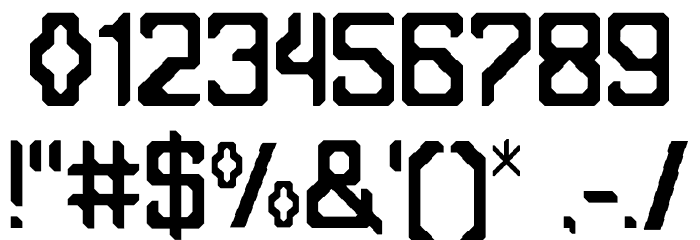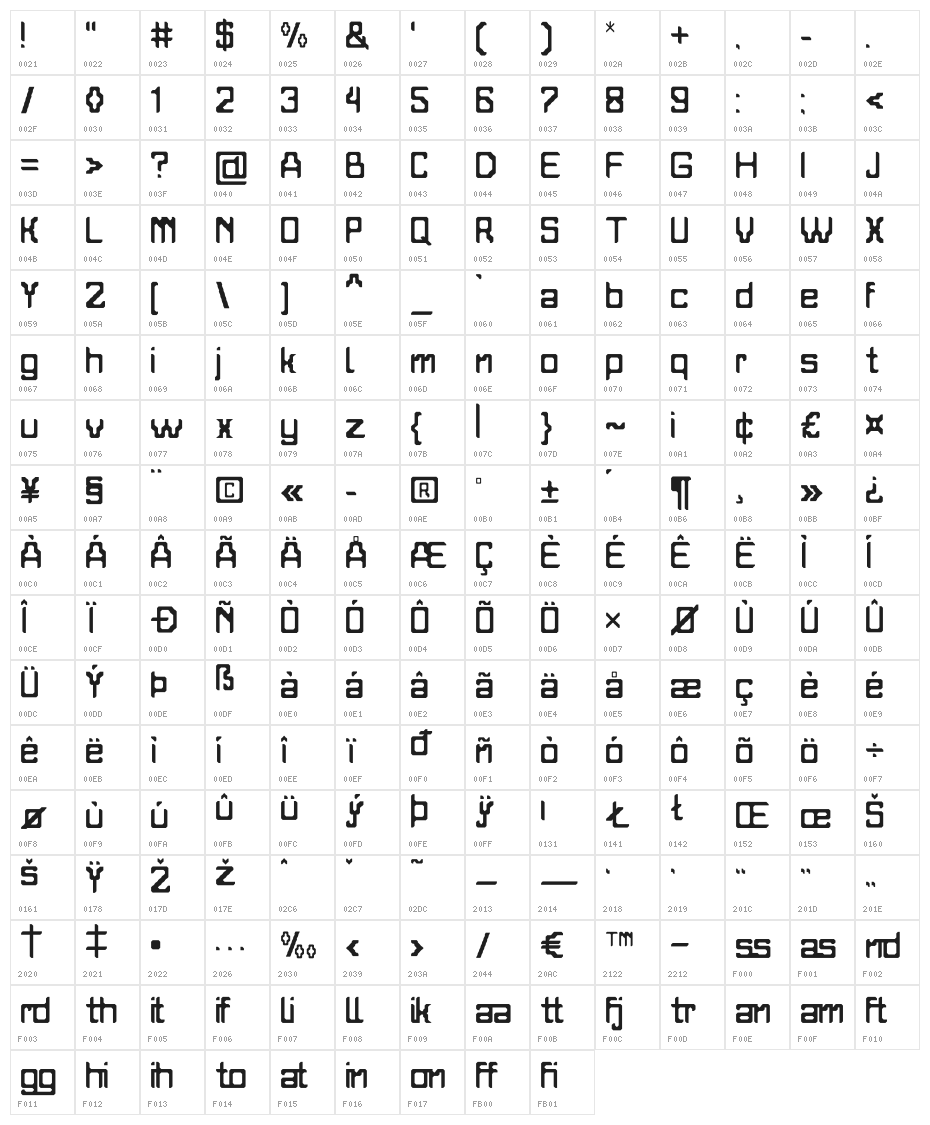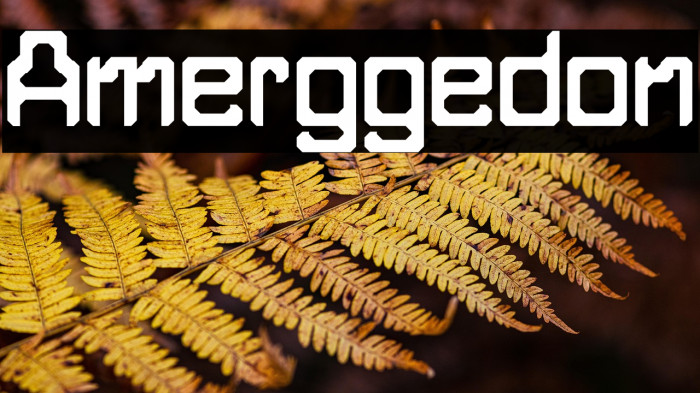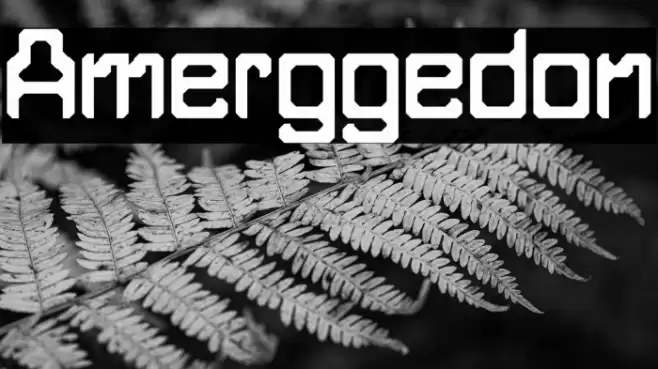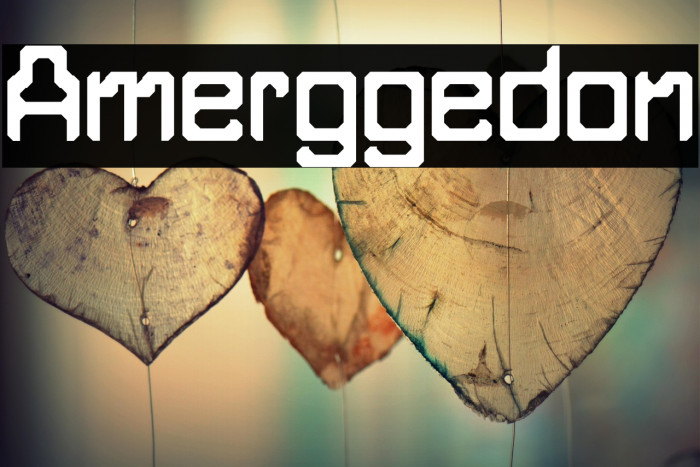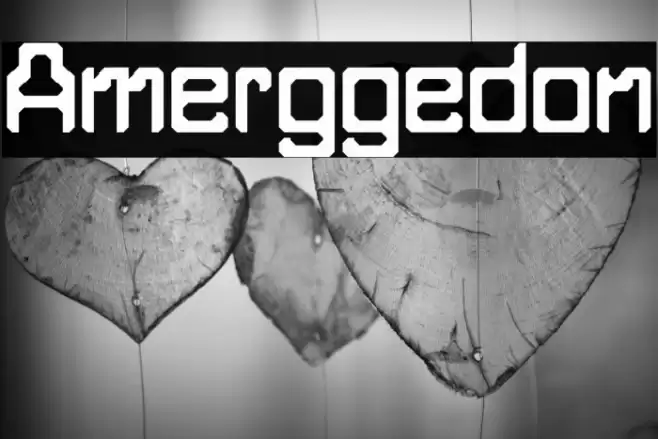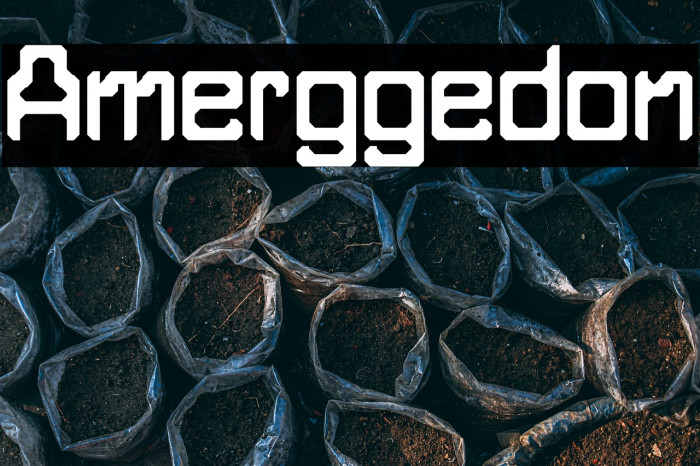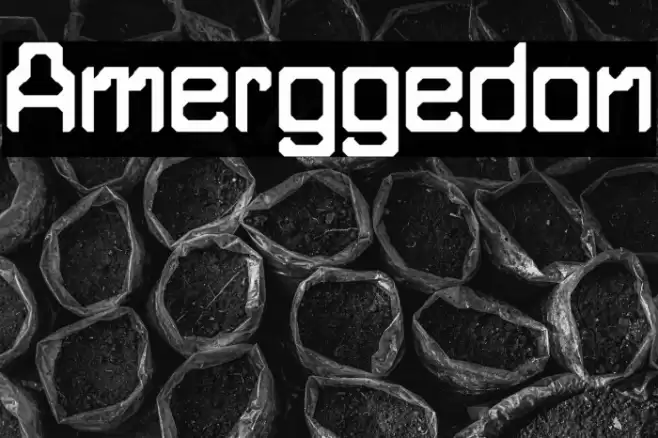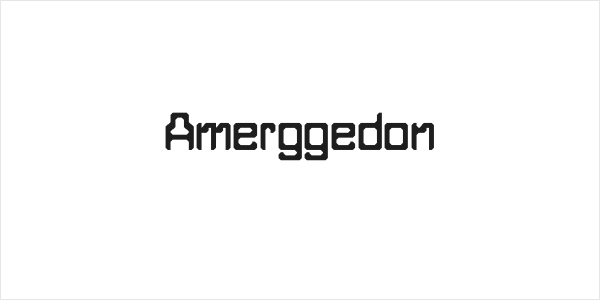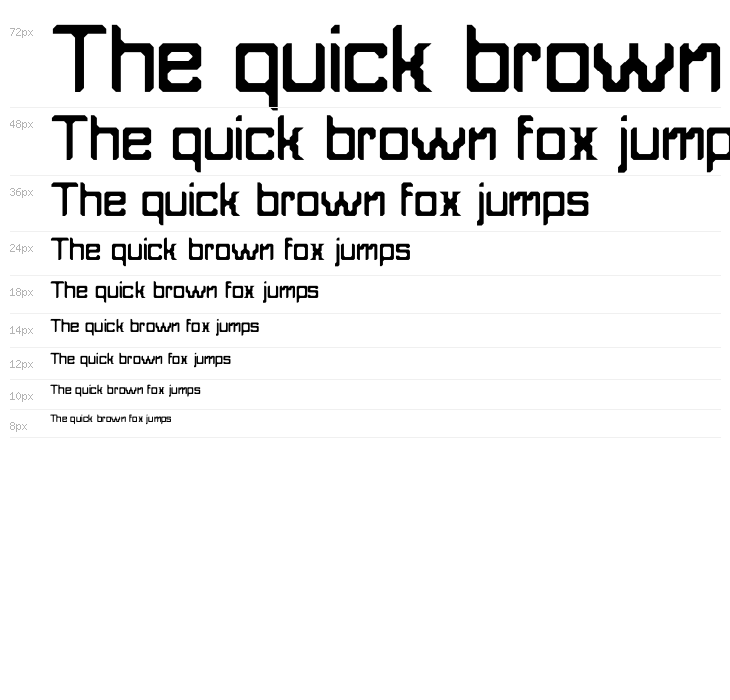
Amerggedon Font
Amerggedon Description
This font features a bold, geometric design with a futuristic and industrial feel. The characters are constructed with thick, angular strokes that create a sense of strength and solidity. The uppercase and lowercase letters maintain a consistent style, with sharp edges and a block-like appearance. Numbers and special characters follow the same design principles, ensuring uniformity across all glyphs. The font's unique style makes it stand out, offering a modern and edgy aesthetic that is both eye-catching and memorable.